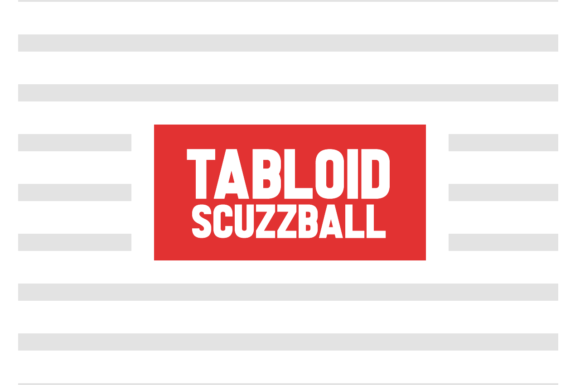
Journey into the realm of sensational headlines with Tabloid Scuzzball, a sans serif font that oozes intrigue, allure, and a touch of irreverence. Created by the ingenious minds at Chequered Ink, this font is a mesmerizing blend of classic and contemporary aesthetics, capturing the essence of tabloid journalism with a dash of modern flair.
Indulge in the captivating allure of Tabloid Scuzzball, a font that effortlessly commands attention. Its bold and assertive strokes dance across the screen, creating an aura of mystery and intrigue that is impossible to ignore. Let your designs sizzle with excitement as Tabloid Scuzzball takes center stage, captivating your audience and leaving them hungry for more.
With Tabloid Scuzzball, ordinary becomes extraordinary. Unleash your creativity and watch as your words transform into captivating headlines, eye-catching posters, and unforgettable logos. This font is a chameleon, effortlessly adapting to any design concept, from vintage-inspired creations to cutting-edge contemporary masterpieces.
As you explore the depths of Tabloid Scuzzball's character set, you'll discover a treasure trove of alternate glyphs and ligatures, each meticulously crafted to add depth and dimension to your designs. Experiment with different combinations to create unique and personalized typography that reflects your brand's personality and sets you apart from the crowd.
Whether you're a seasoned designer seeking to elevate your projects or a creative enthusiast embarking on a new journey, Tabloid Scuzzball is the perfect companion. Its user-friendly charm and boundless versatility make it an indispensable tool for any design arsenal. Download Tabloid Scuzzball today and unlock the gateway to remarkable designs that speak volumes.